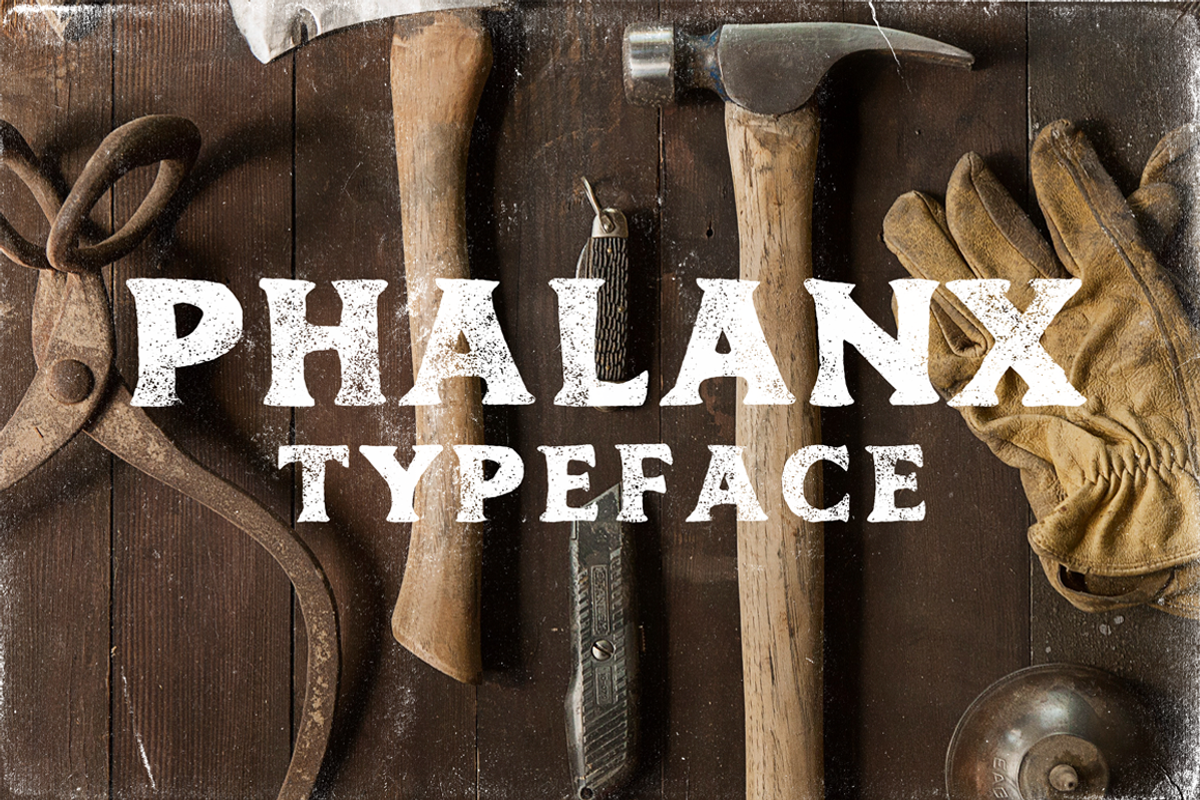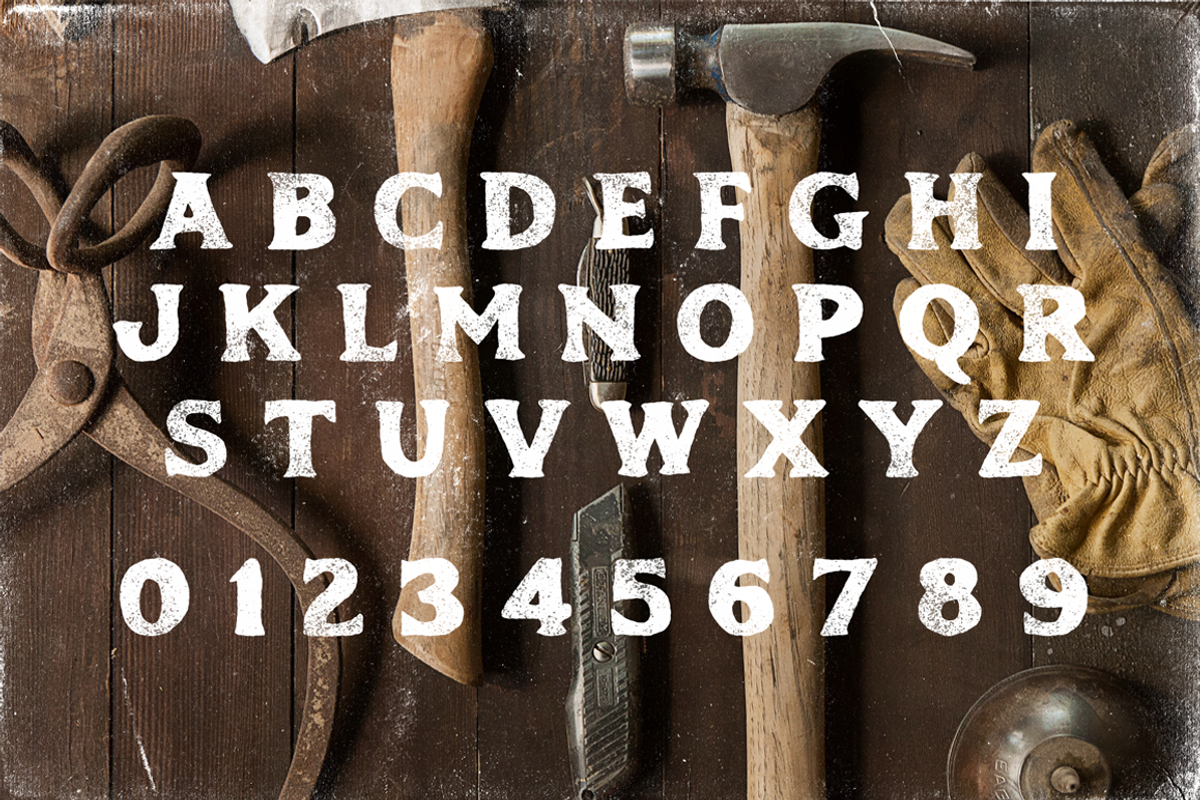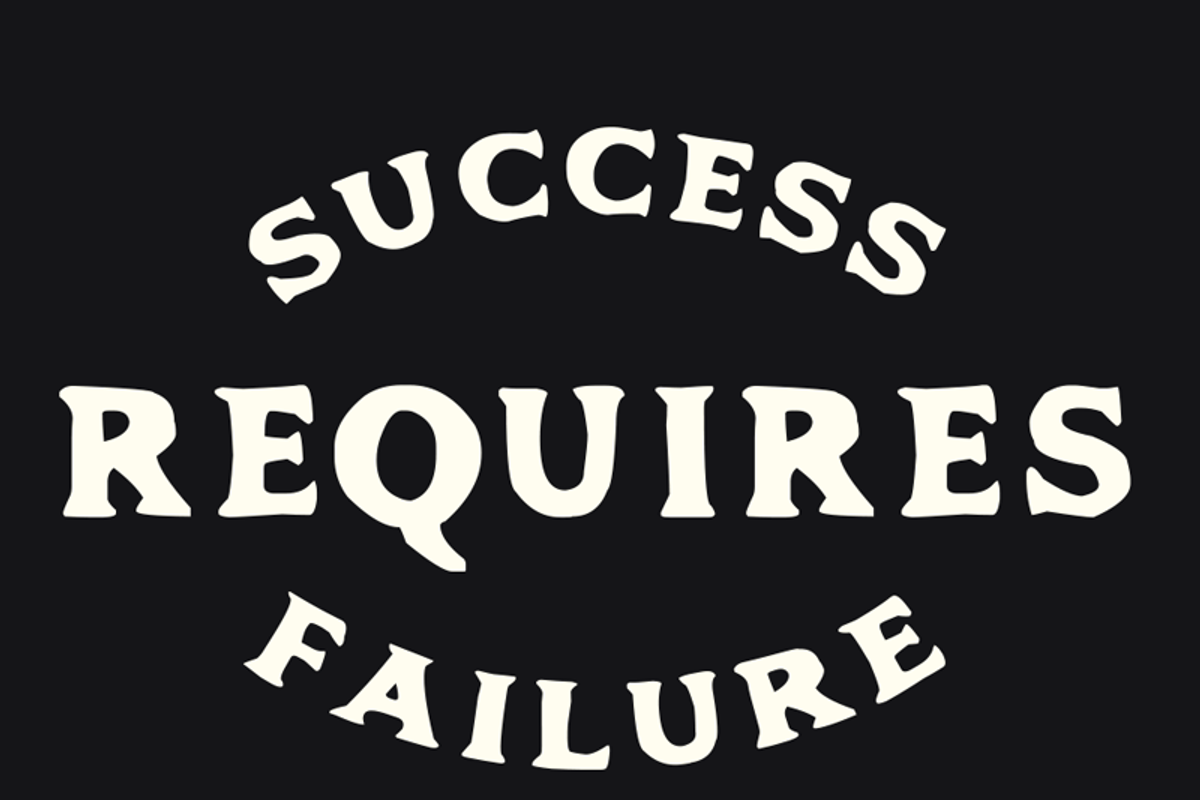
Phalanx Typeface
Phalanx Typeface by Mark Richardson is a font selected for branding, posters, packaging, typography.
- The typeface includes the full alphabet along with numbers.
Why Phalanx Typeface is worth a look
Phalanx Typeface by Mark Richardson fits naturally into Branding, posters, packaging, typography.